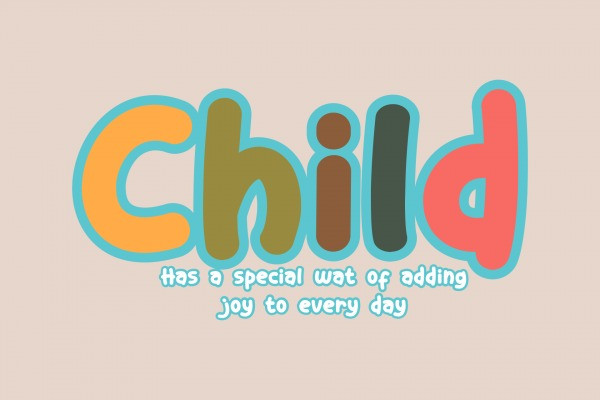
Sugar Bomb Display Font
SUGAR BOMB is a comical Display Font. It’s funny, bold comical character that will give you design a strong touch! Great for any design, NOT ONLY for Packaging. but it also works great for some kids stuff, birthday or invitation cards, t-shirt, sticker, poster, sign, store logo, branding, and much more! Includes 2 styles cartoonized text effect for FREE to beautify your design!